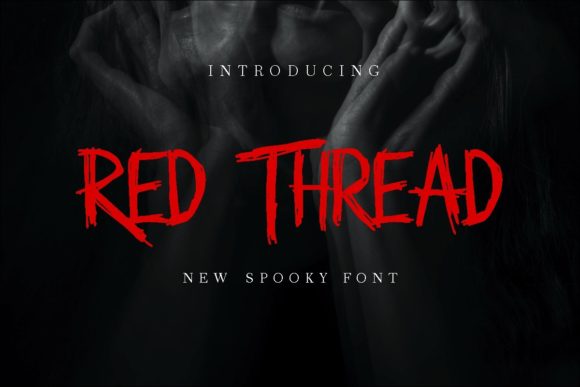
Unleash the Enigmatic Charm of Red Thread Font: A Stroke of Inspiration for Hauntingly Beautiful Designs
Journey into the realm of darkness and intrigue with Red Thread Font, a mesmerizing creation that weaves a spell of enchantment and mystery. This tantalizing display font is the perfect instrument to evoke a haunting charm and spine-tingling sensations, leaving an indelible mark on your creative endeavors.
Crafted with meticulous attention to detail and an innate understanding of aesthetic allure, Red Thread Font beckons you to explore the boundless realm of the macabre. Its bold and assertive strokes possess an uncanny ability to capture the imagination, inviting you to delve into worlds unknown and tales untold.
Whether you're a seasoned designer, a budding artist, or an avid enthusiast of the supernatural, Red Thread Font is your key to unlocking a treasure trove of creativity. Elevate your projects with an aura of mystique, leaving your audience spellbound and yearning for more.
Harness the Power of Red Thread Font: The Quintessential Choice for Mesmerizing Designs
Red Thread Font stands as a beacon of creative possibilities, empowering you to cast an enigmatic spell over your audience. Unleash its dark allure in countless applications:
- Craft spellbinding logos and branding identities that radiate an eerie sophistication.
- Summon captivating posters and flyers that whisper tales of haunted mansions and ghostly apparitions.
- Design book covers that transport readers to realms of twilight and enchant them with an otherworldly charm.
- Conjure social media graphics that ignite curiosity and leave a haunting impression.
- Weave enchanting invitations that add an air of mystery to special gatherings.
- Create merchandise designs that exude an aura of the supernatural, captivating customers with their enigmatic charm.
Immerse Yourself in the World of Red Thread Font: Your Gateway to Creative Enchantment
With Red Thread Font at your fingertips, you'll unlock a world of design opportunities that transcend the ordinary. Embrace the allure of the shadows and let your creativity soar to new heights.